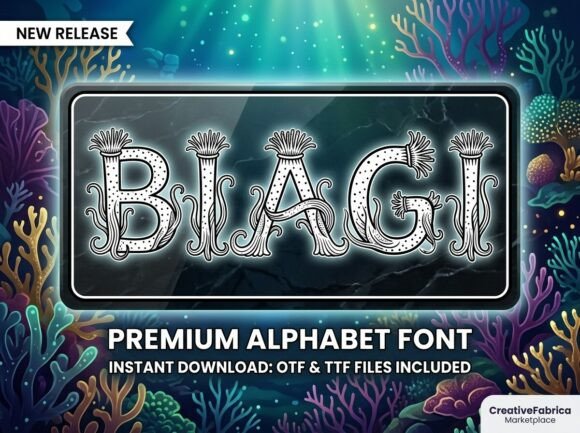
Discover the Underwater Elegance of Biagi Font
Are you looking for a typeface that can transport your brand or design project to an underwater world of elegance and sophistication? Look no further than Biagi Font, a stunning aquatic display typeface that embodies the fluid and floral beauty of the ocean. In this article, we’ll dive into the unique features and characteristics of Biagi, and explore its perfect applications in design and branding.
The Inspiration Behind Biagi
Biagi Font is inspired by the wonders of marine biology, with a unique blend of elegance and playfulness. The font features elongated letterforms with rhythmic, hand-drawn “sea anemone” crowns and swirling kelp-like flourishes that evoke the organic and fluid shapes of underwater life. This distinctive design makes Biagi a standout choice for brands and designers seeking to make a splash in the world of aquatic-themed design.
Design Characteristics of Biagi
Biagi boasts a medium structural weight, providing a perfect balance between elegance and readability. The font’s organic personality shines through in its hand-drawn details, giving it a distinctly human touch. The sea anemone crowns and kelp-like flourishes add a whimsical and artistic flair, making Biagi perfect for designs that require a touch of sophistication and luxury.
Perfect Applications for Biagi
Biagi’s unique design makes it an ideal choice for a range of applications, including:
• Independent Aquarium Identities: Create a lasting impression with Biagi’s elegant and sophisticated letterforms, perfect for aquarium logos, signage, and marketing materials.
• Boutique Seafood Restaurant Logos: Add a touch of luxury and sophistication to your seafood restaurant’s branding with Biagi’s stunning aquatic-inspired design.
• High-End Tropical Resort Branding: Transport your guests to an underwater paradise with Biagi’s beautiful and elegant typography, perfect for resort logos, menus, and marketing materials.
• High-Impact Social Media Headers: Make a splash on social media with Biagi’s bold and eye-catching design, perfect for creating engaging and mystical marine-themed headers.
Why Choose Biagi?
Biagi Font offers a unique combination of elegance, sophistication, and playfulness, making it the perfect choice for designers and brands seeking to create a lasting impression. Here are just a few reasons why Biagi stands out:
• Unique Design: Biagi’s hand-drawn details and organic personality make it a one-of-a-kind typeface that will set your brand or design project apart.
• Versatility: Biagi’s medium structural weight and elegant letterforms make it suitable for a range of applications, from luxury branding to social media headers.
• Readability: Biagi’s carefully crafted design ensures that it remains readable even at large sizes, making it perfect for headlines, titles, and signage.
Biagi Font is a stunning aquatic display typeface that offers a unique blend of elegance, sophistication, and playfulness. With its hand-drawn details, organic personality, and medium structural weight, Biagi is the perfect choice for designers and brands seeking to create a lasting impression in the world of aquatic-themed design. Whether you’re looking to create a luxurious brand identity, a stunning social media header, or an eye-catching signage, Biagi is the premier choice for immersing yourself in an underwater wonderland of design.
Get Ready to Make a Splash with Biagi!
Ready to dive into the world of Biagi Font? Explore the font’s features, applications, and benefits in more detail, and discover how it can elevate your design project or brand identity to new heights. With Biagi, you’ll be able to create a lasting impression that will leave your audience mesmerized and inspired.